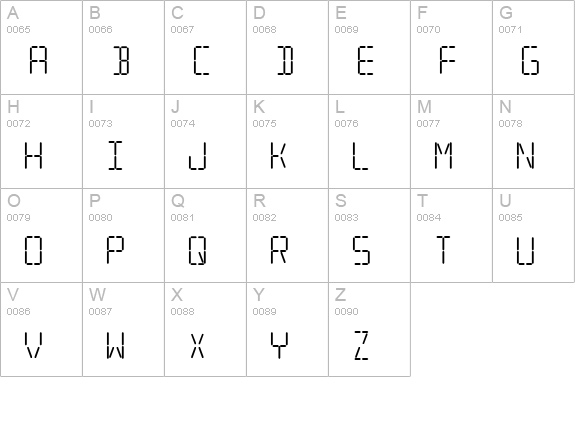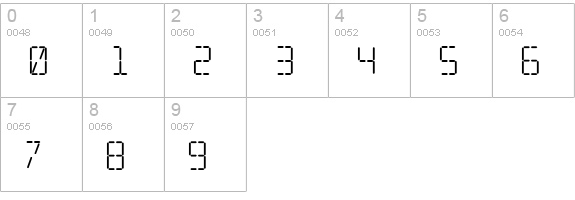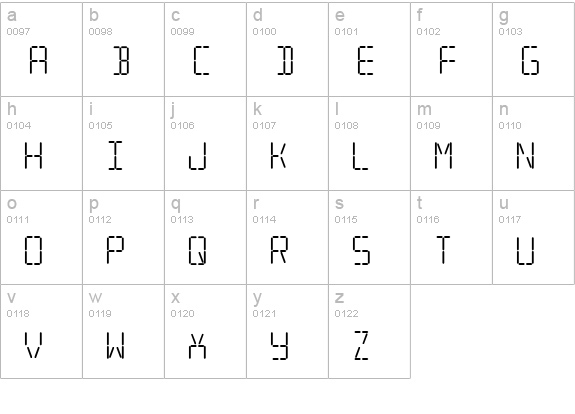
Transponder AOE Font Details
Transponder AOE font is a stunning display typeface that exudes a futuristic and technological vibe. Its sleek and geometric design captivates the eye, making it perfect for a wide range of creative projects. This font features clean lines and sharp edges, giving it a unique and modern look. The letters are expertly crafted, with each character seamlessly connecting to create a cohesive and harmonious typeface. Whether used for headlines, logos, or branding materials, Transponder AOE font commands attention and adds a touch of sophistication to any design. What makes this font even more appealing is that it is freely available to download at FontsMarket.com. This means that you can effortlessly incorporate the Transponder AOE font into your projects without worrying about any additional costs. It's a fantastic opportunity to elevate your designs without breaking the bank. Transponder AOE font is versatile and adaptable, making it suitable for a wide range of design styles. Whether you're working on a sleek and modern website, a cutting-edge tech startup, or a futuristic sci-fi project, this font will effortlessly complement your vision. Its clean and precise letterforms ensure legibility and readability, even at smaller sizes. With its striking aesthetics and cost-free availability, Transponder AOE font is a must-have for designers, creatives, and anyone looking to make a bold statement. Download it today from FontsMarket.com and unlock a world of possibilities for your next project.